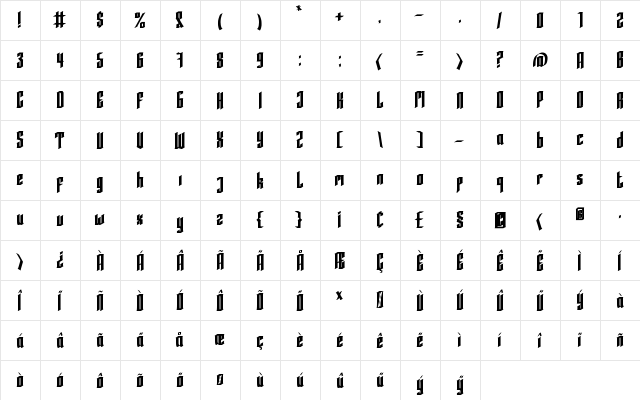
Averoos Regular
| Foundry | Typotopia |
| Designer | Typotopia |
Design Context for Averoos Typeface
Averoos is a composed and adaptable typeface that performs quietly and consistently across a wide range of design contexts.